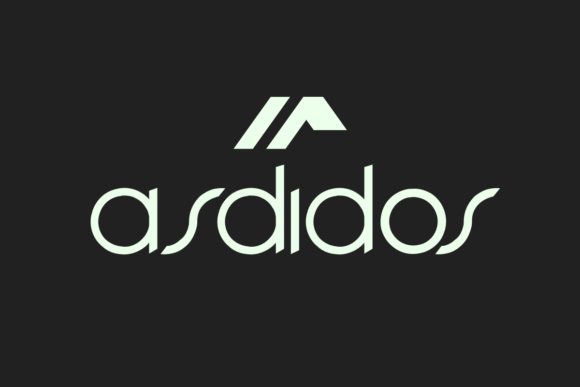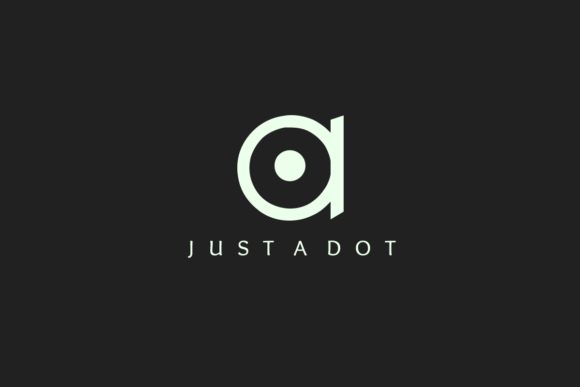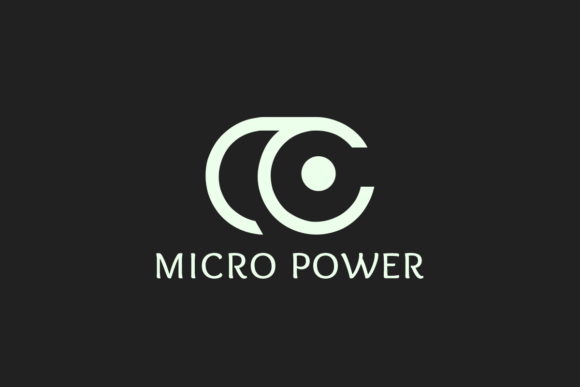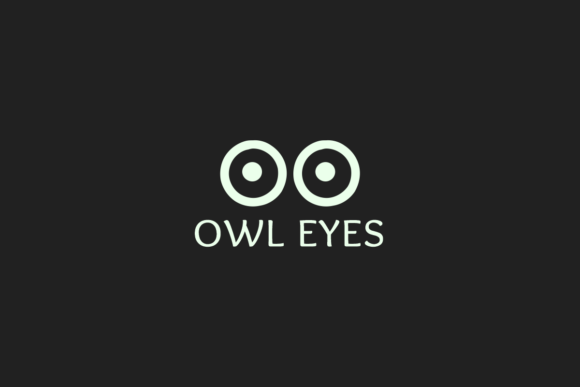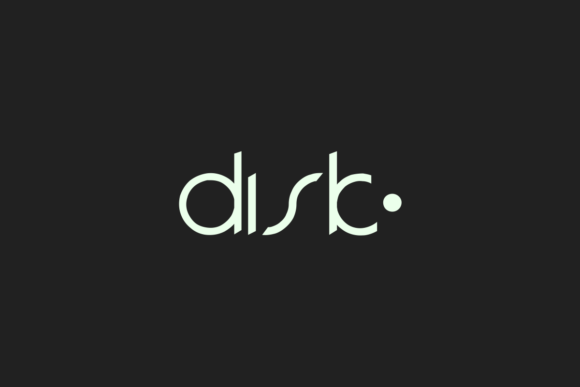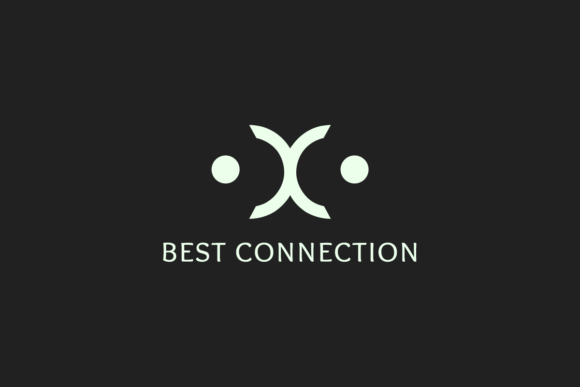
As you’re working on your next big project, you need a font that can keep up with your vision. That’s where the Autologo Font comes in – a stunning, round-lettered display font designed to add a touch of elegance and sophistication to your designs. This versatile font is perfect for making your creative ideas shine, whether you’re working on a branding project, a marketing campaign, or a graphic novel.
With the Autologo Font, you’ll be able to bring your ideas to life in a way that’s both beautiful and impactful. Its unique design makes it a valuable addition to any designer’s toolkit, and it’s sure to become a go-to font for your next big project.
Autologo Font Key Features
- Font Family: Autologo Font is a unique, modern sans-serif font designed for various digital and print applications.
- Unique Characteristics: Autologo Font features a distinctive, geometric design with subtle rounded edges, giving it a modern and friendly feel that works well for corporate identities, digital products, and editorial content.
Autologo Font Review
Overall, I found the Autologo Font to be a stylish and elegant typeface, suitable for various design applications.
- Unique Character Set: Autologo Font has a unique character set that gives it a distinct personality.
- Clean and Simple Design: The font’s clean and simple design makes it easy to read and use in various contexts.
- Highly Customizable: The font is highly customizable, allowing designers to adjust the weight, width, and other parameters to suit their needs.
- Wide Range of Languages: Autologo Font supports a wide range of languages, making it a great choice for multilingual designs.
- Limited Expressiveness: While Autologo Font is elegant, it may lack the expressiveness of more dramatic or bold fonts.
- Not Ideal for Display Text: The font’s clean design may make it less suitable for display text or headings where a bolder font is needed.
In conclusion, Autologo Font is a solid choice for designers who want a clean and elegant typeface with a unique character set. While it may have some limitations, its high customizability and wide language support make it a versatile option for various design applications.
Autologo Font is commonly used for:
- Graphic design and visual identity